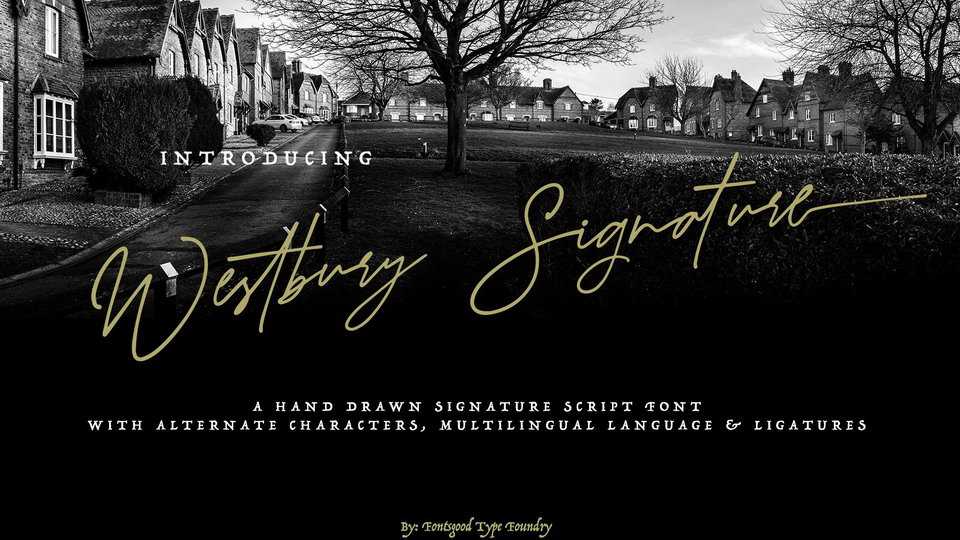
Download Westbury Signature font, a stunning hand drawn signature script, for those of you who are needing a touch of elegant, hand made signature and modernity for your designs.
Designer: Fontsgood